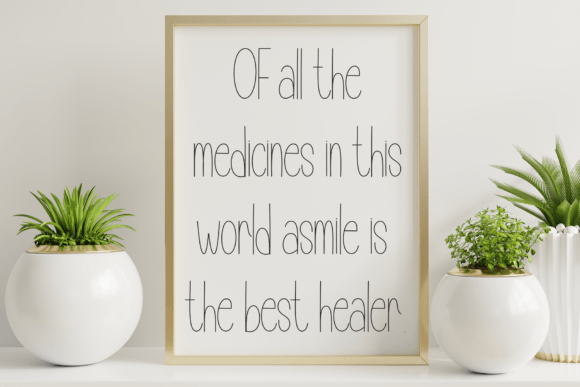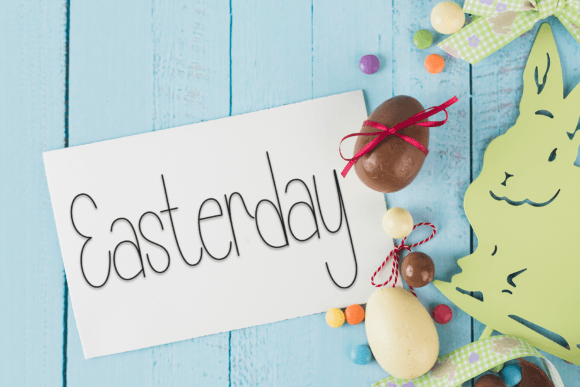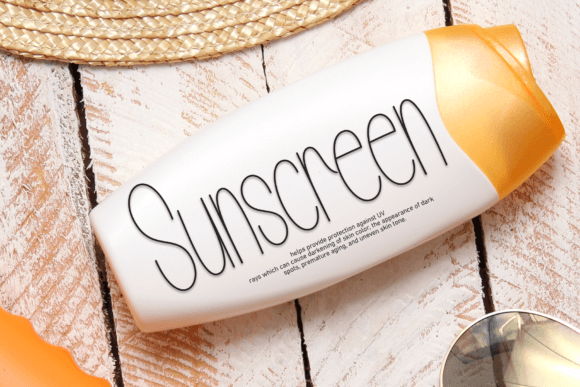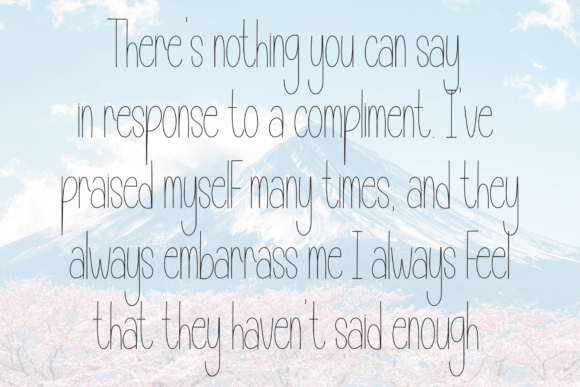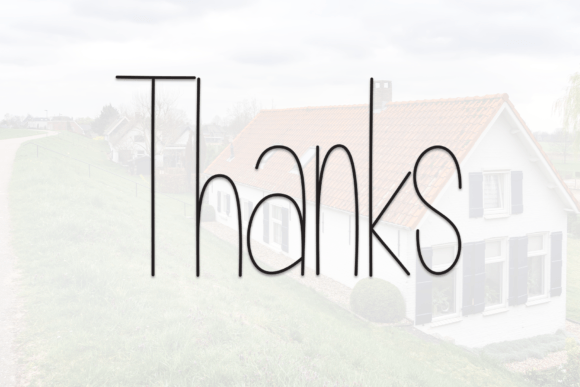
Introducing Farmhouse Font: The Sweet and Friendly Handwritten Font for Your Design Needs
Are you a designer or crafter looking for a font that can add a touch of warmth and personality to your designs? Look no further than Farmhouse Font, a sweet and friendly handwritten font that’s perfect for creating beautiful and eye-catching designs. In this article, we’ll take a closer look at Farmhouse Font, its features, and how you can use it to elevate your designs.
Farmhouse Font is a handwritten font that’s designed to be both cute and fun. Its sweet and friendly style makes it ideal for writing wedding invitations, cards, or any other design that might need a fun touch. The font is carefully crafted to resemble handwriting, giving it a personal and approachable feel that’s perfect for a wide range of design projects.
So, what makes Farmhouse Font so special? Here are some of its key features:
- Handwritten style: Farmhouse Font is a handwritten font that’s designed to look like it was written with a pen. This gives it a personal and friendly feel that’s perfect for designs that need a touch of warmth.
- Cute and fun: The font is carefully crafted to be both cute and fun, making it perfect for designs that need a playful touch.
- Versatile: Farmhouse Font is a versatile font that can be used for a wide range of design projects, from wedding invitations and cards to posters and social media graphics.
- Easy to read: Despite its handwritten style, Farmhouse Font is easy to read, making it perfect for designs that need to communicate a message.
How to Use Farmhouse Font in Your Designs
Now that we’ve covered the features of Farmhouse Font, let’s take a look at how you can use it in your designs. Here are some ideas to get you started:
- Wedding invitations: Farmhouse Font is perfect for writing wedding invitations that need a touch of warmth and personality.
- Cards: The font is also great for creating cards for special occasions, such as birthdays, anniversaries, and holidays.
- Posters and flyers: Farmhouse Font can be used to create eye-catching posters and flyers for events, promotions, and products.
- Social media graphics: The font is also perfect for creating social media graphics that need a touch of personality and whimsy.
Tips for Getting the Most Out of Farmhouse Font
Here are some tips for getting the most out of Farmhouse Font:
- Use it with a playful color scheme: Farmhouse Font looks great with bright and playful color schemes that match its fun and friendly style.
- Experiment with different sizes: The font looks great in a variety of sizes, from small and delicate to large and bold.
- Pair it with other fonts: Farmhouse Font can be paired with other fonts to create a unique and interesting design.
Farmhouse Font is a sweet and friendly handwritten font that’s perfect for designers and crafters who need a touch of warmth and personality in their designs. With its cute and fun style, versatility, and ease of use, it’s no wonder that Farmhouse Font is a popular choice for a wide range of design projects. Whether you’re creating wedding invitations, cards, posters, or social media graphics, Farmhouse Font is a great choice for adding a touch of whimsy and fun to your designs.